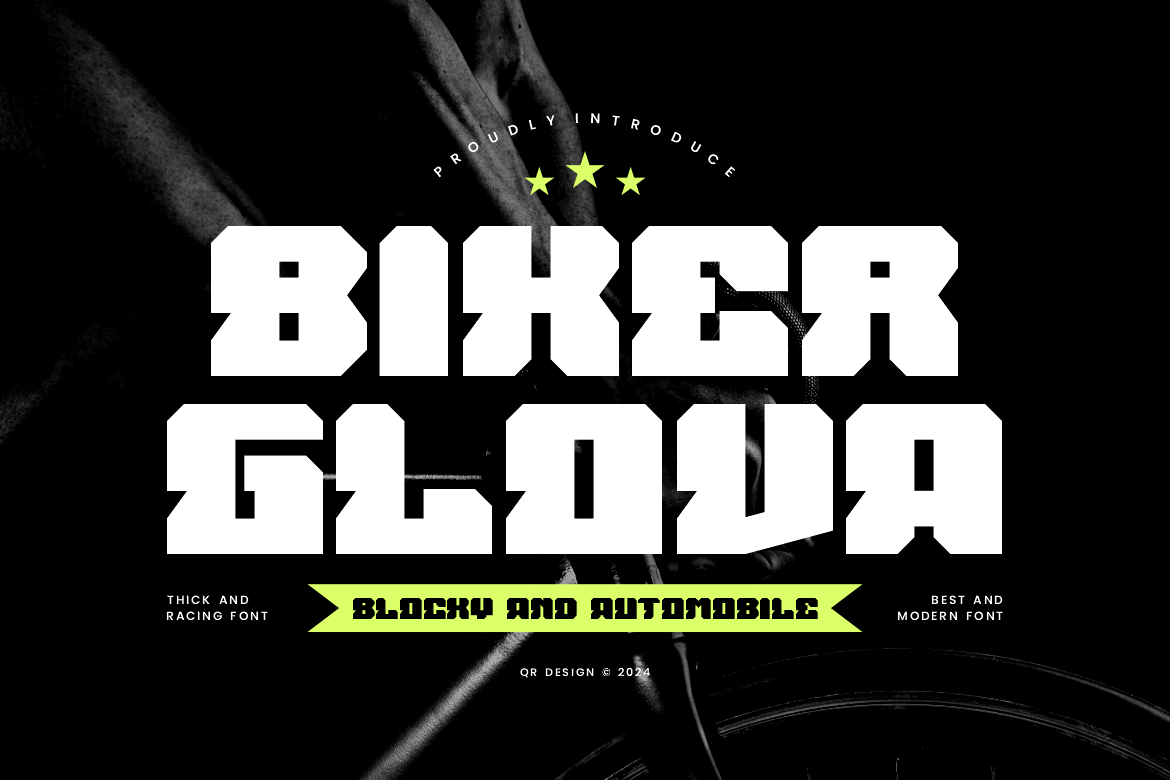
Biker Glova Blocky & Automobile Font
Biker Glova Font is a bold and authentic display font. The font is suitable for any branding project like poster, logo, sport, and many more. Outstanding in a wide range of contexts.